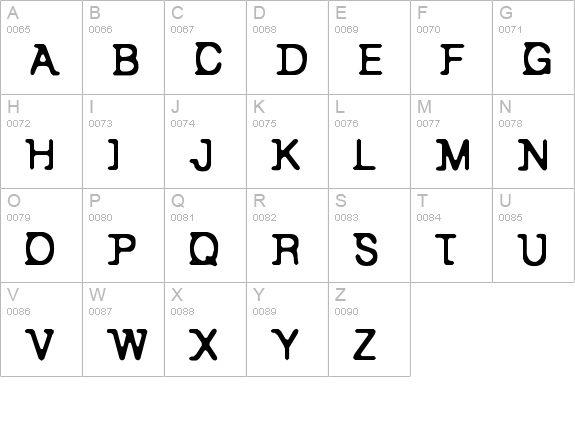
Back to Bay 6 font is a beautiful and versatile typeface that will add a touch of elegance and sophistication to any design project. With its clean lines and stylish curves, this font is perfect for creating eye-catching logos, headings, and signage. What sets Back to Bay 6 font apart is not only its stunning aesthetics but also the fact that it is freely available to download at FontsMarket.com. This means that designers, creatives, and enthusiasts alike can access this amazing font without any cost or limitations. Designed with meticulous attention to detail, Back to Bay 6 font offers a wide range of glyphs, including uppercase and lowercase letters, numerals, punctuation marks, and special characters. Its versatility allows it to be used in various design styles, from modern and minimalist to vintage and retro. The smooth and balanced letterforms of Back to Bay 6 font create a harmonious visual experience, making it a perfect choice for both digital and print designs. Whether you are working on a branding project, website design, packaging, or any other creative endeavor, this font will effortlessly elevate your work to the next level. With Back to Bay 6 font, you no longer have to compromise on quality or style. Its freely available download option at FontsMarket.com ensures that you can access this high-quality font without any hassle. So why wait? Download Back to Bay 6 font today and unleash your creativity with a touch of elegance and sophistication.